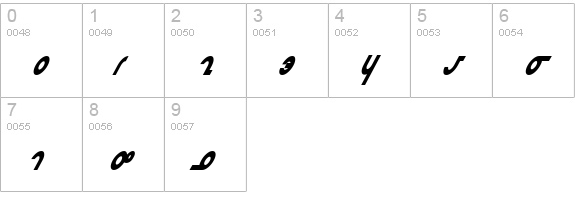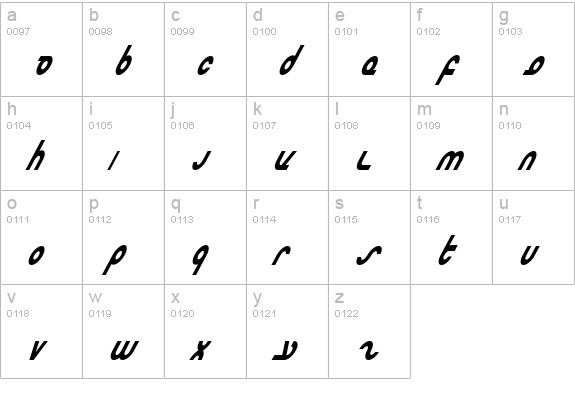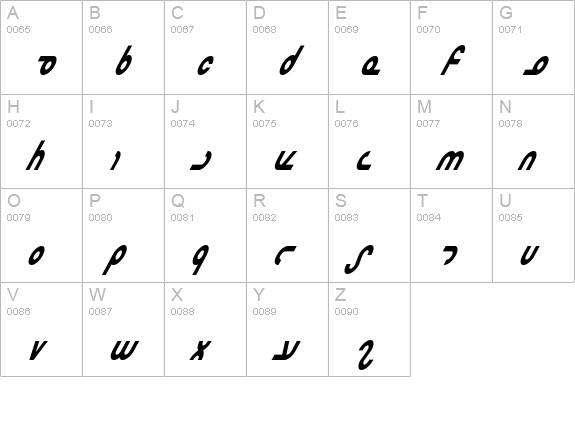
Masterdom Condensed Bold Italic is a strong, high-contrast, condensed-width, italic variant in the Masterdom typeface family \xE2\x80\x94 well suited to headlines, attention-grabbing titles, and strong calls-to-action.
Introducing Masterdom Condensed Bold Italic font - a sleek and modern typeface designed to make a bold statement. This versatile font is perfect for adding a touch of sophistication to your projects, whether it be for branding, advertising, packaging, or any other design needs. Masterdom Condensed Bold Italic font features a condensed and bold design with a subtle italic touch, giving it a unique and stylish appearance. The strong and dynamic letterforms of this font make it perfect for headlines, titles, and other prominent text elements. What's even better is that Masterdom Condensed Bold Italic font is available for free download at FontsMarket.com. So you can easily add this eye-catching font to your collection without breaking the bank. Don't miss out on this opportunity to elevate your designs with the striking Masterdom Condensed Bold Italic font. Download it now and let your creativity shine!